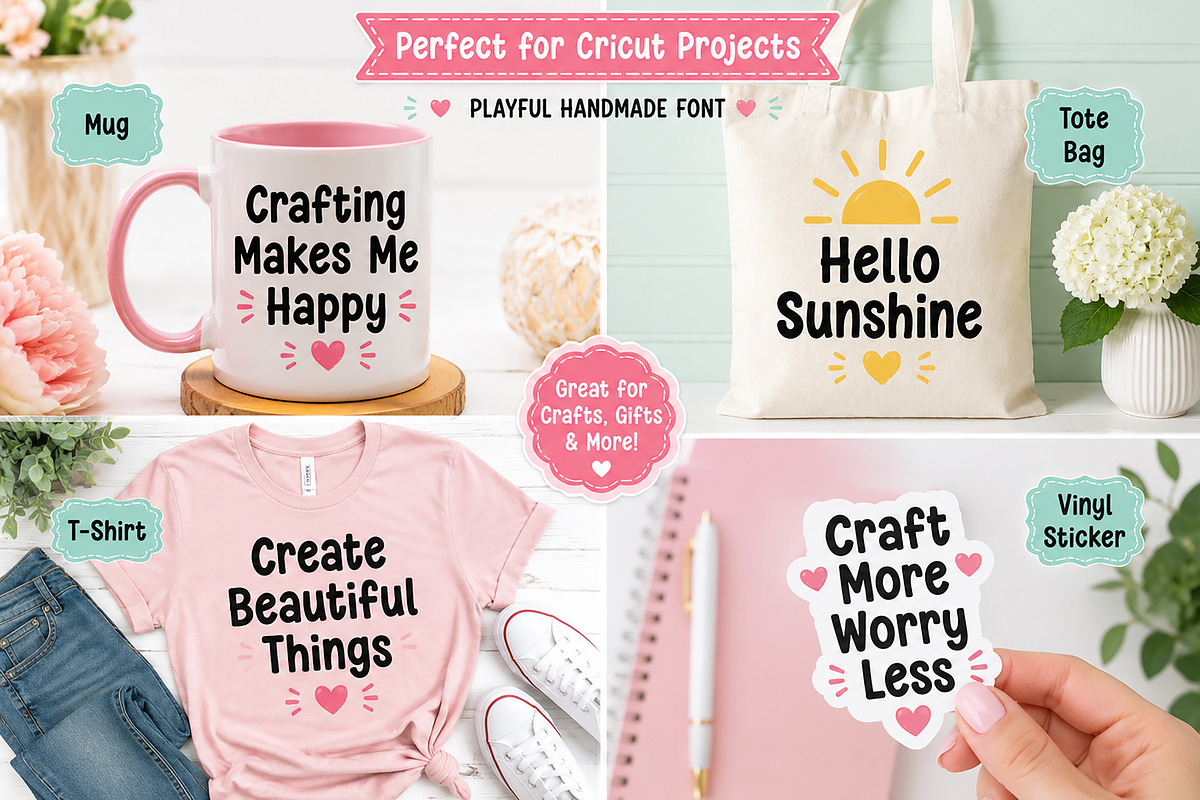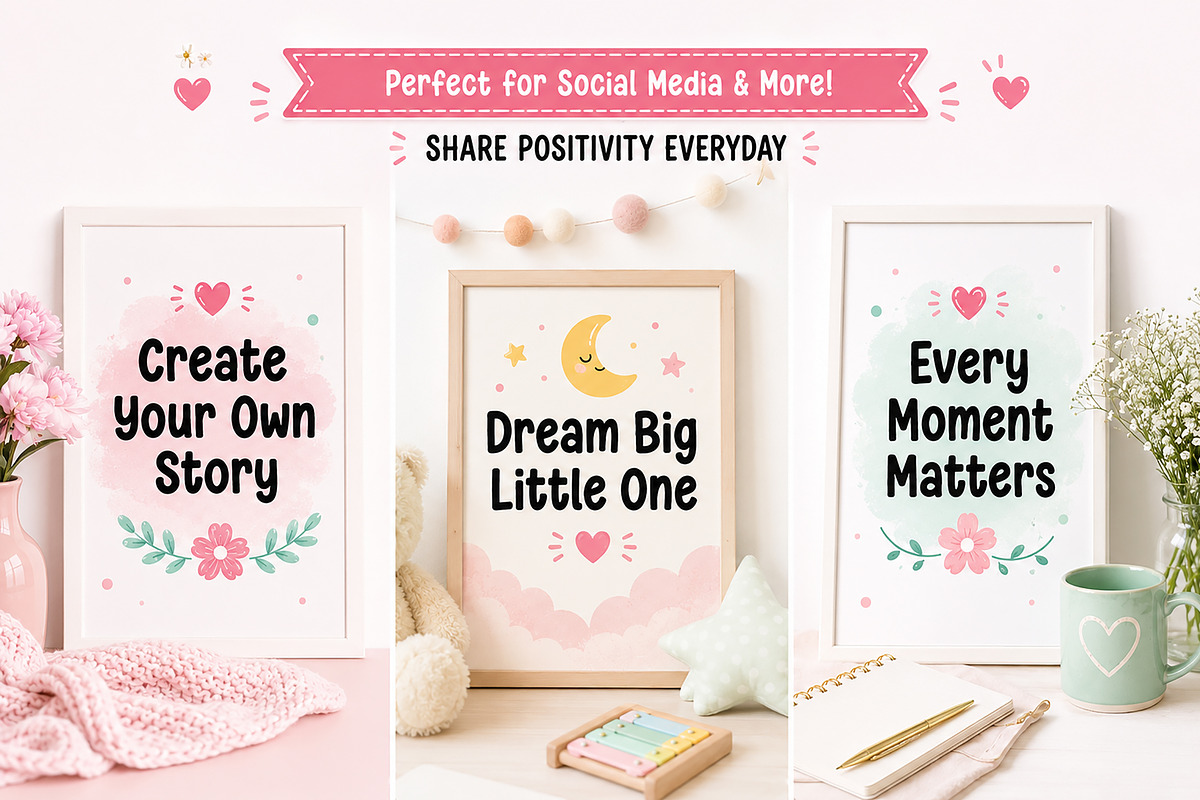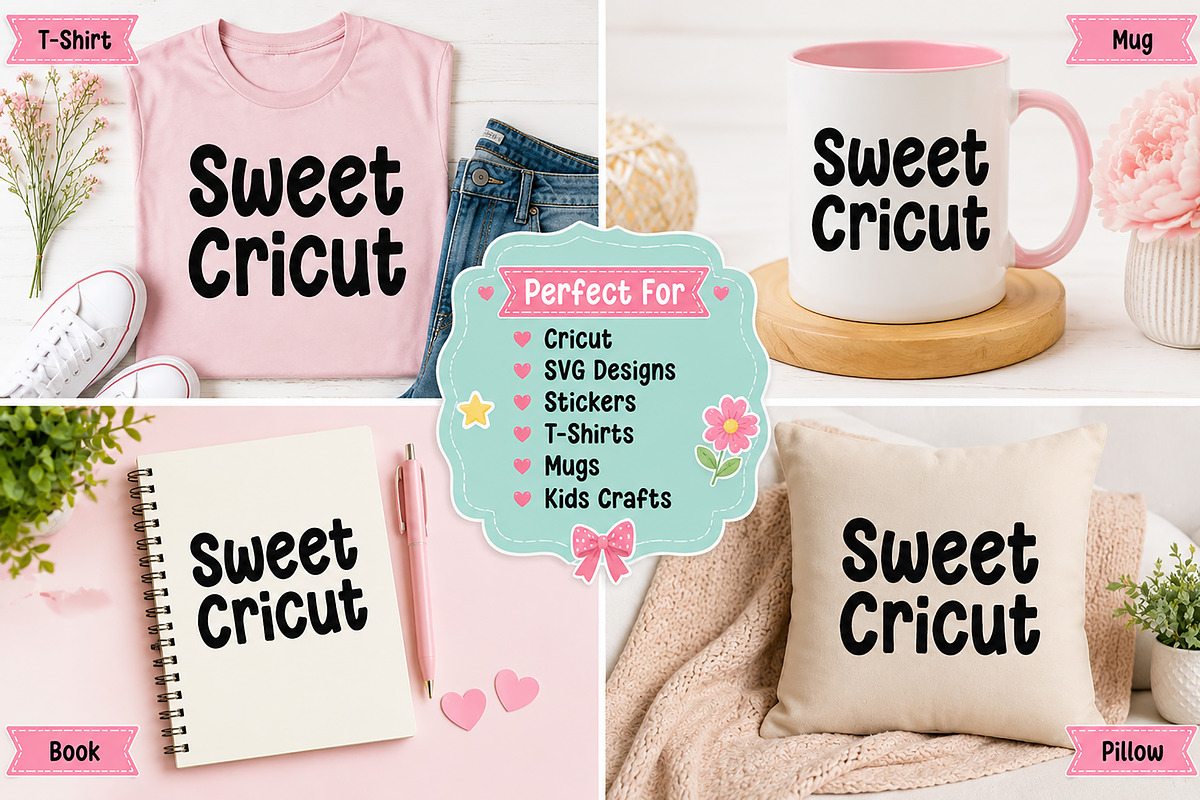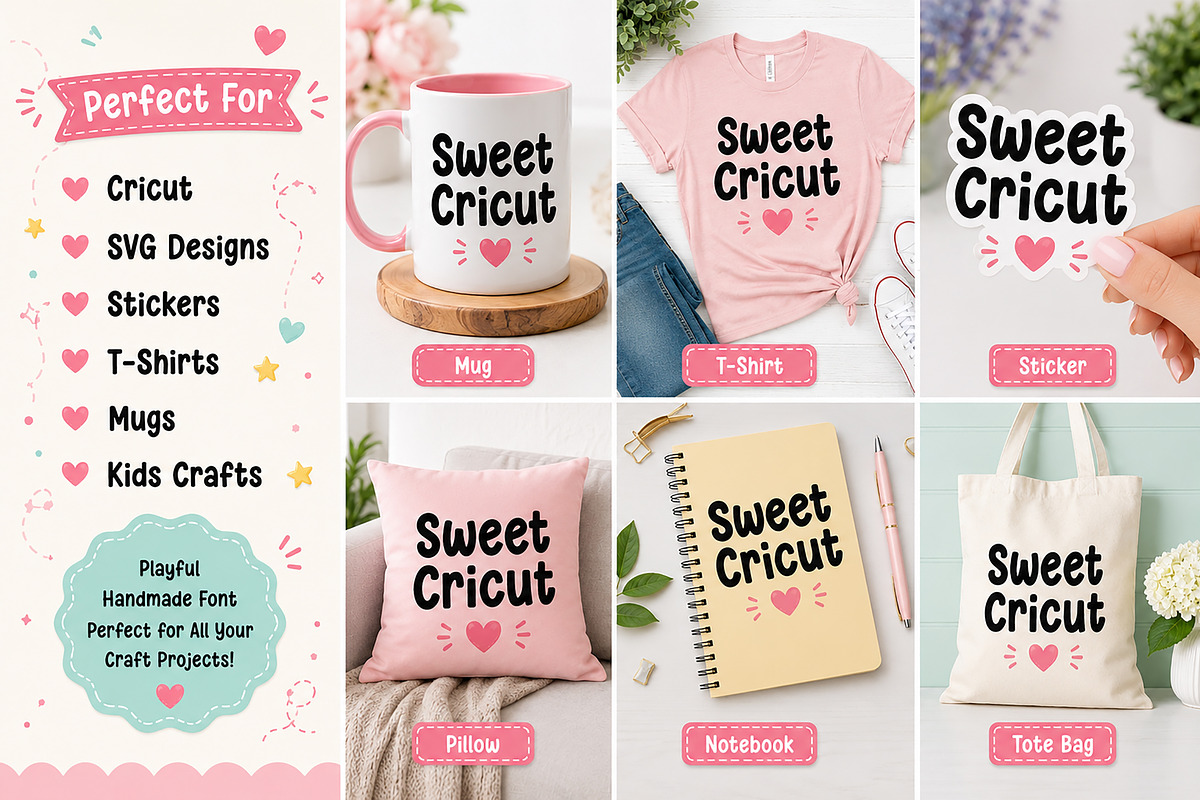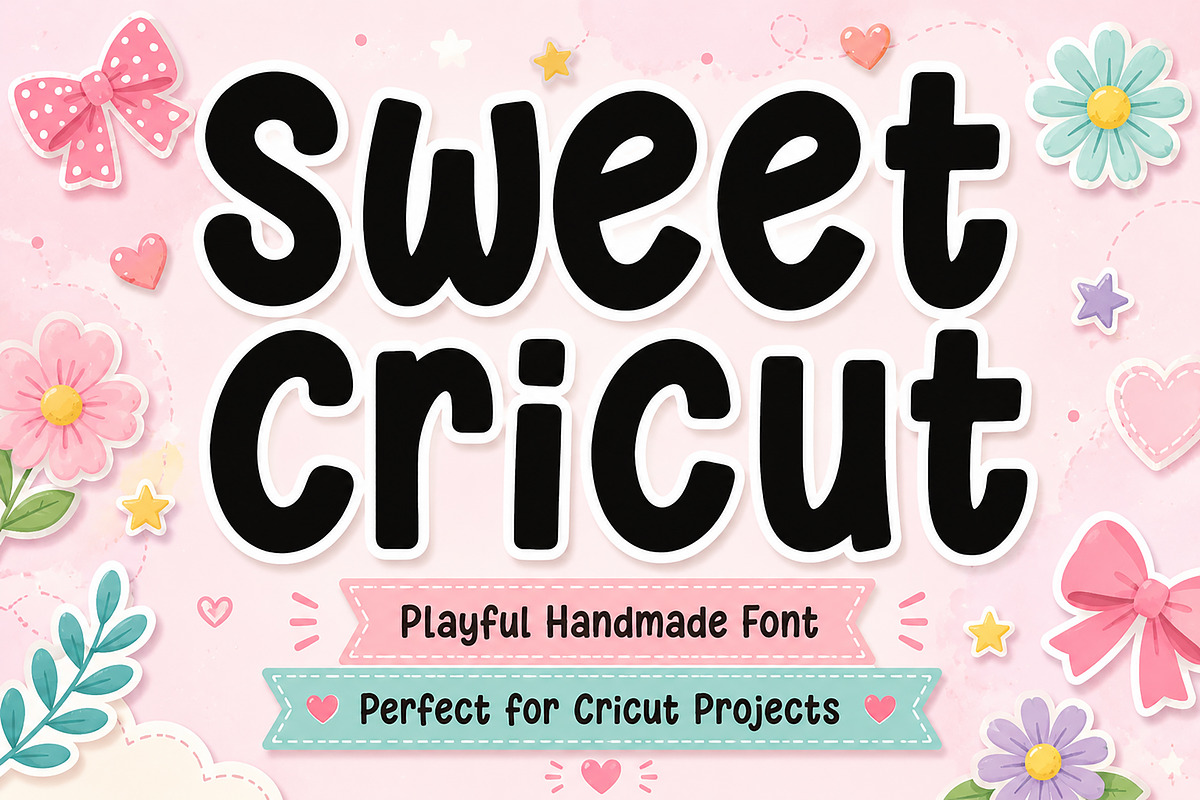
Sweet Cricut
Sweet Cricut – Playful Handmade Font
Sweet Cricut is a fun, cheerful, and playful handmade font designed especially for crafters, Cricut makers, SVG designers, and creative entrepreneurs. With its bold, rounded letterforms and friendly personality, this font adds a charming handmade touch to every project.
Whether you're creating vinyl decals, stickers, t-shirts, mugs, tote bags, invitations, greeting cards, social media graphics, or kids’ crafts, Sweet Cricut makes your designs stand out with a warm and playful feel.
Its clean and easy-to-cut shapes make it an excellent choice for Cricut, Silhouette, laser cutting projects, and print-on-demand products.
Cricut Projects
SVG Designs
Vinyl Decals
Stickers
T-Shirts
Mugs
Tote Bags
Tumblers
Kids Crafts
Greeting Cards
Invitations
Scrapbooking
Print-on-Demand Products
Classroom Decorations
Nursery Designs
DIY Craft Projects
Easy-to-Read Characters
Clean Cut-Friendly Shapes
Bring your creative ideas to life with Sweet Cricut — the perfect playful font for all your crafting and design adventures!